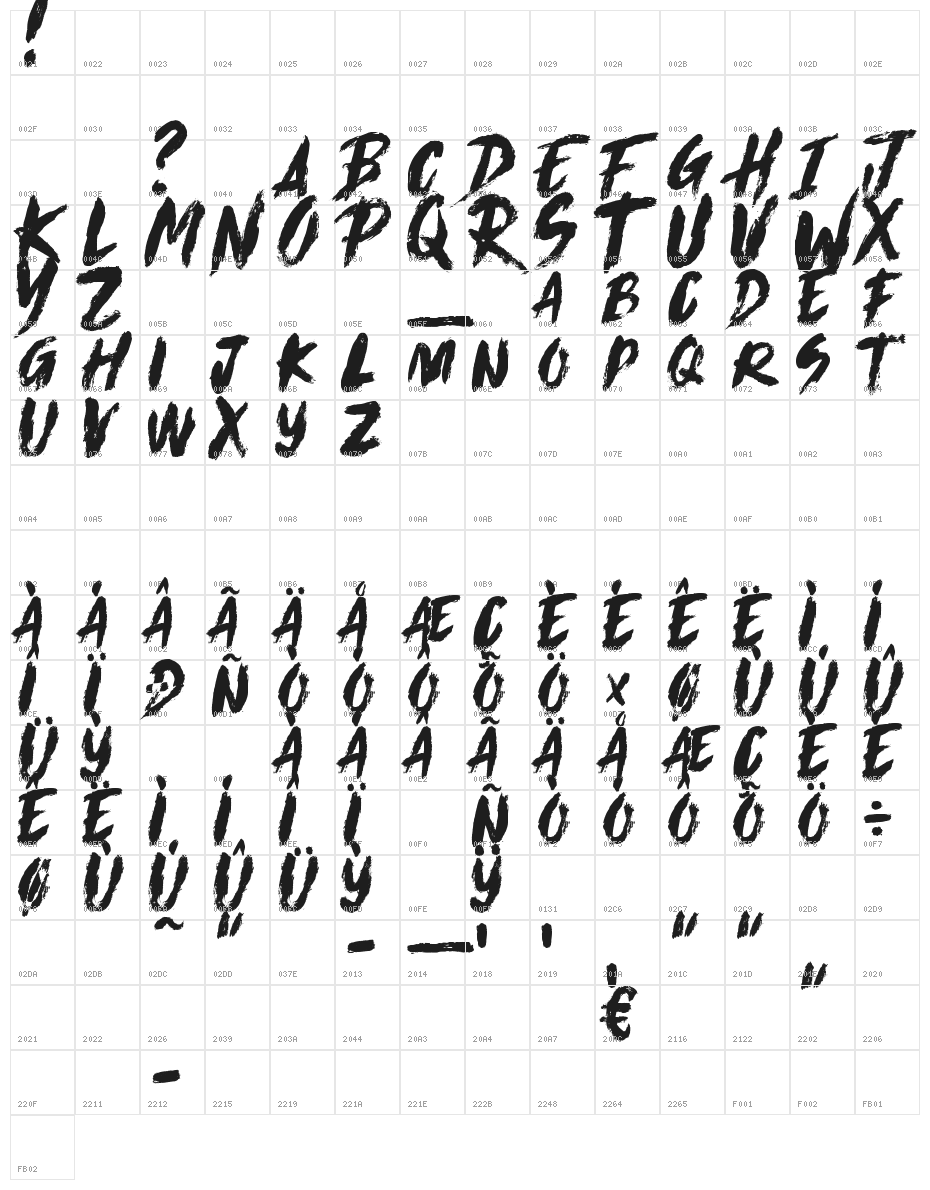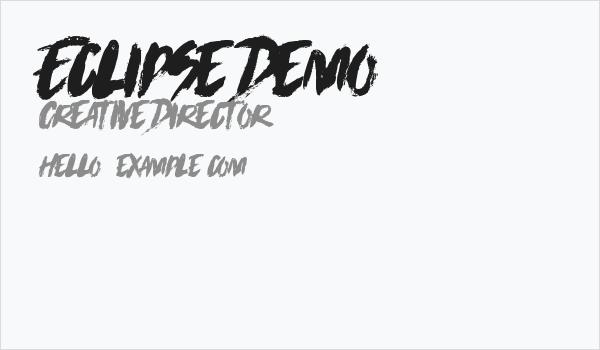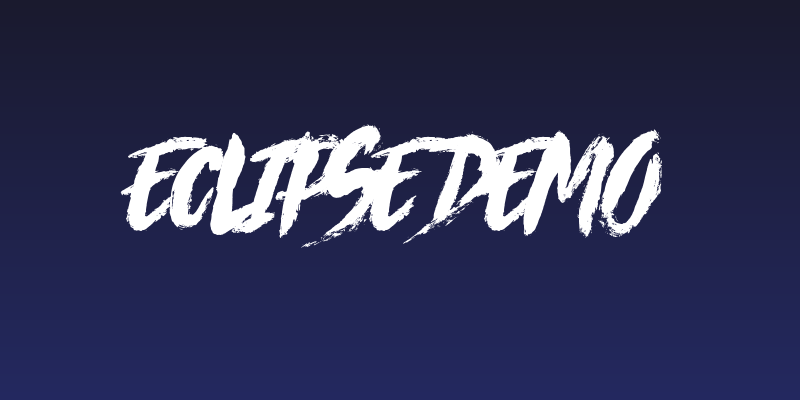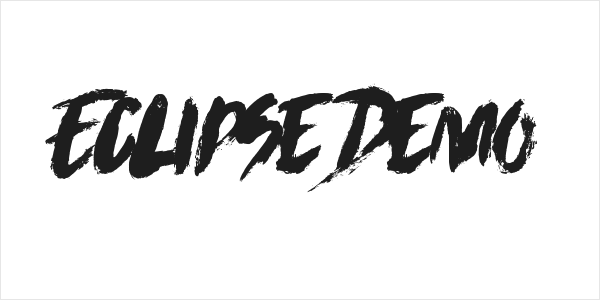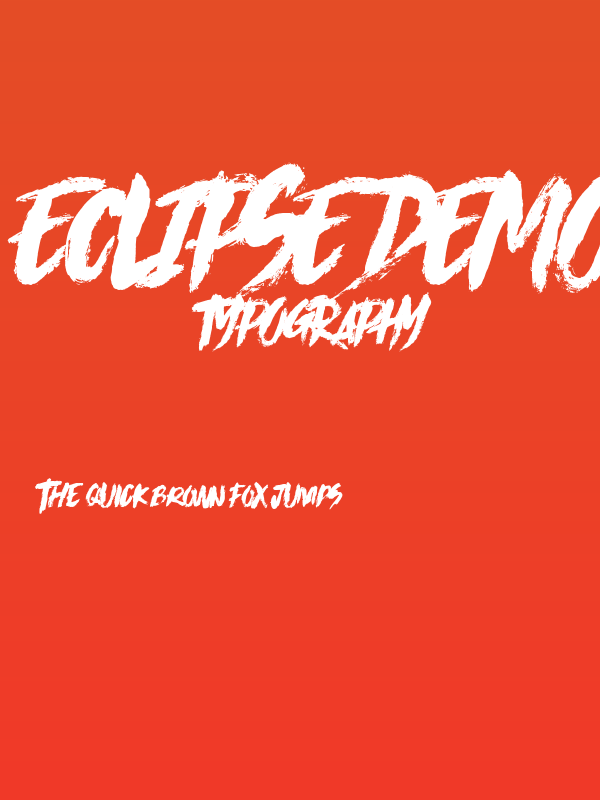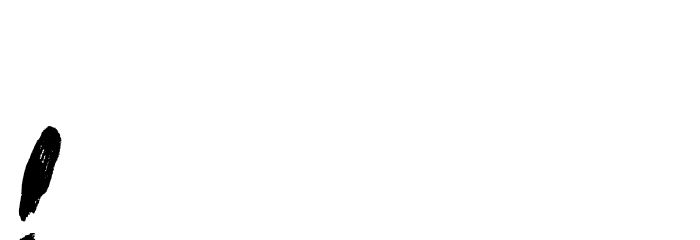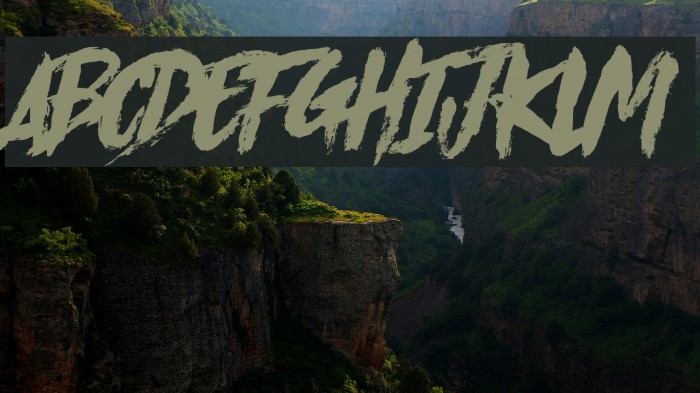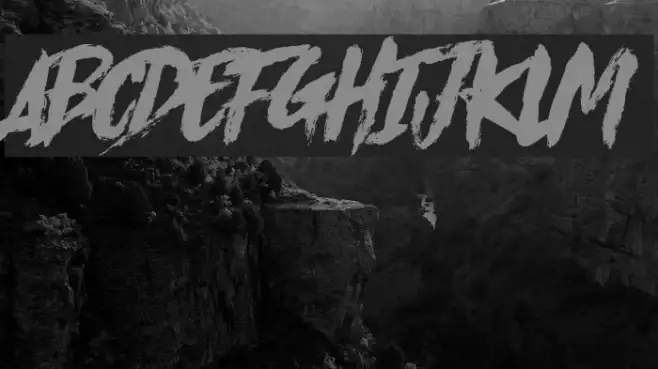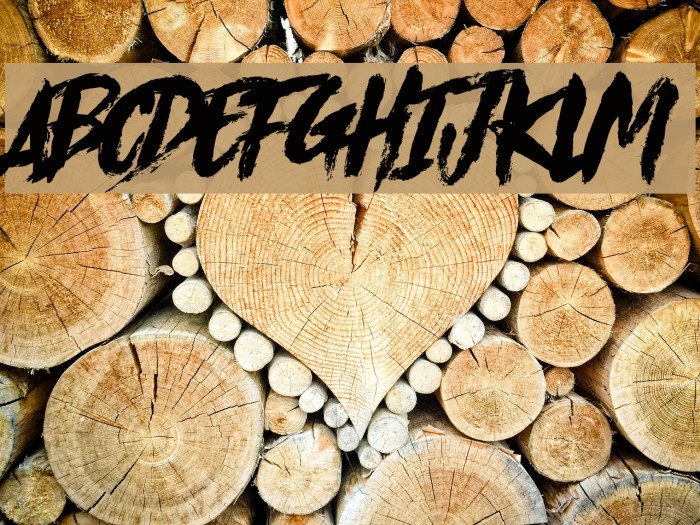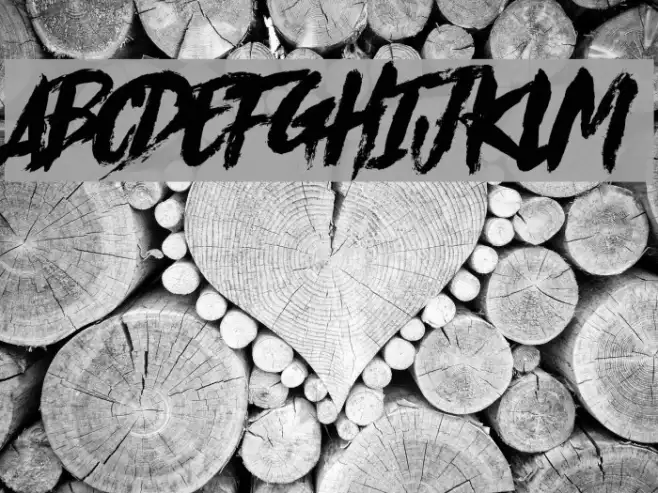
Eclipse Demo Font
Eclipse Demo Description
This font features a bold, expressive brush style that conveys a sense of energy and dynamism. The strokes are thick and irregular, giving it a hand-painted appearance. The characters are slightly slanted, enhancing the impression of movement and fluidity. The uppercase and lowercase letters maintain a consistent style, with some variations in stroke thickness that add to its artistic flair. The numbers and special characters are equally bold and expressive, making them stand out. This font is ideal for projects that require a strong visual impact and a creative, artistic touch.
| Proposed Projects | Ideal for posters, album covers, branding, and any creative projects needing a bold artistic touch. |